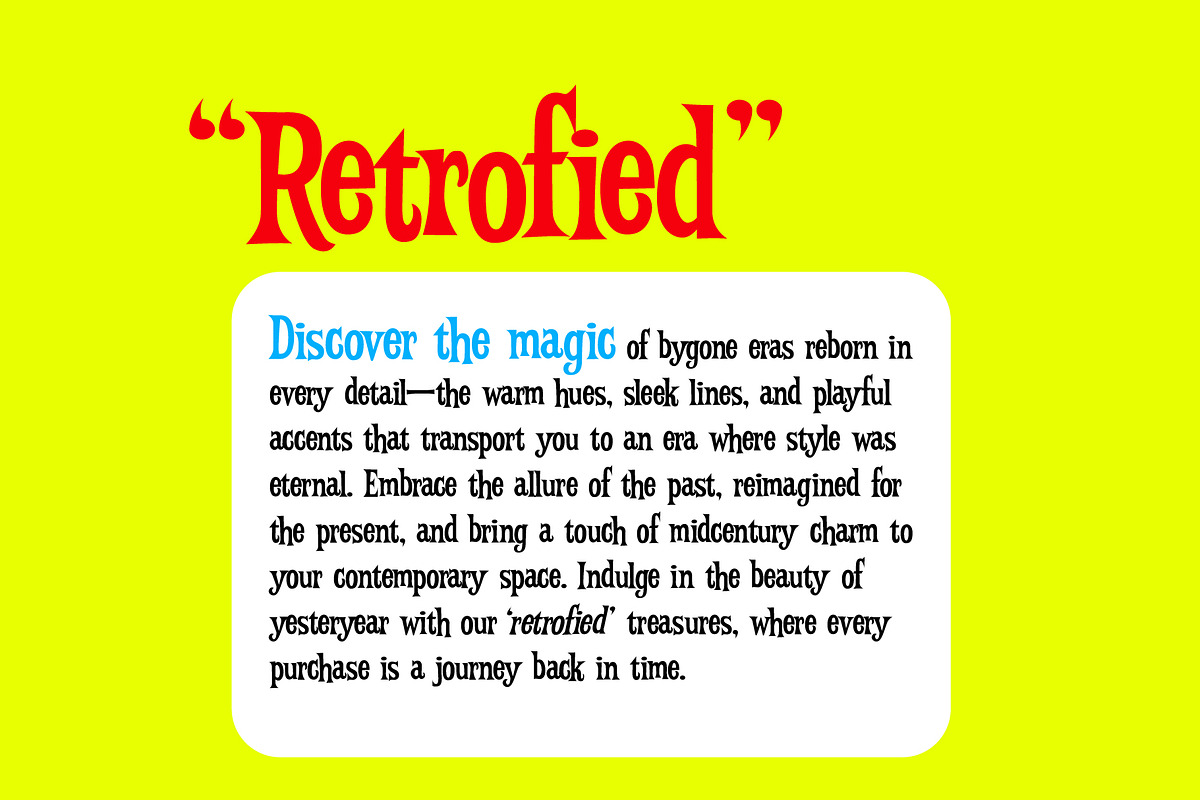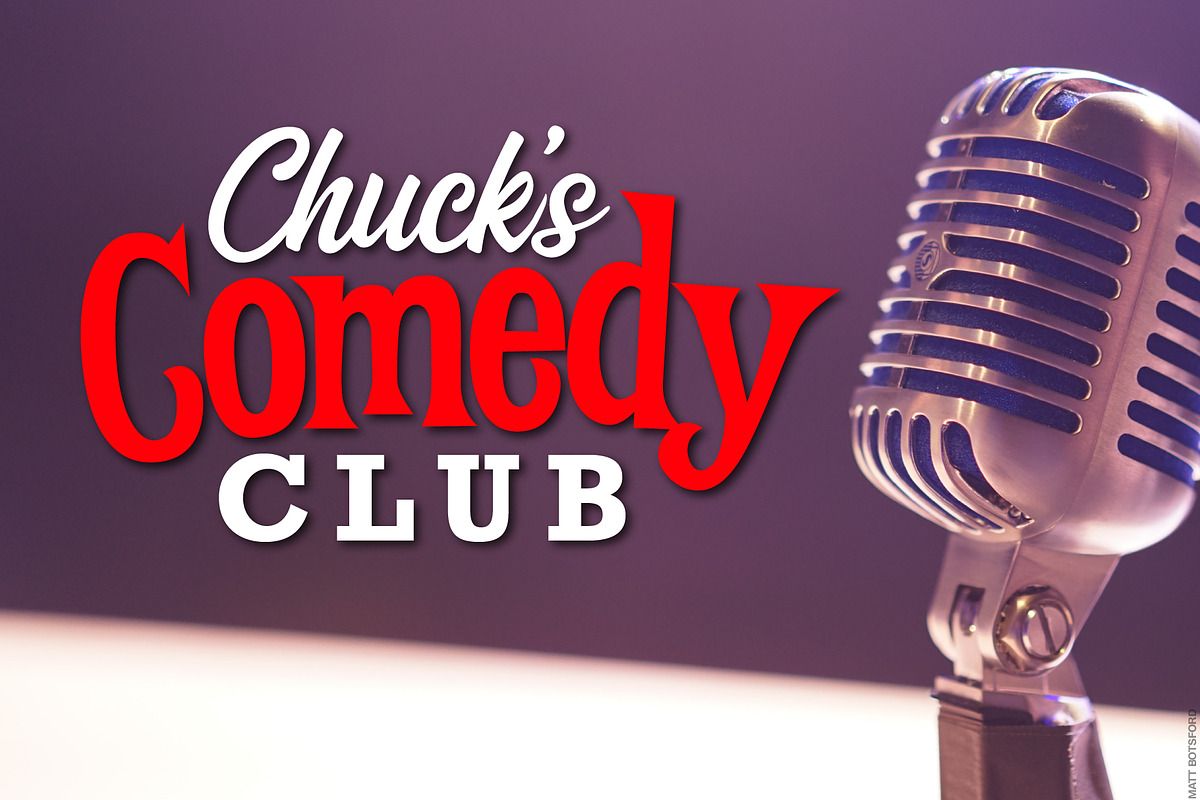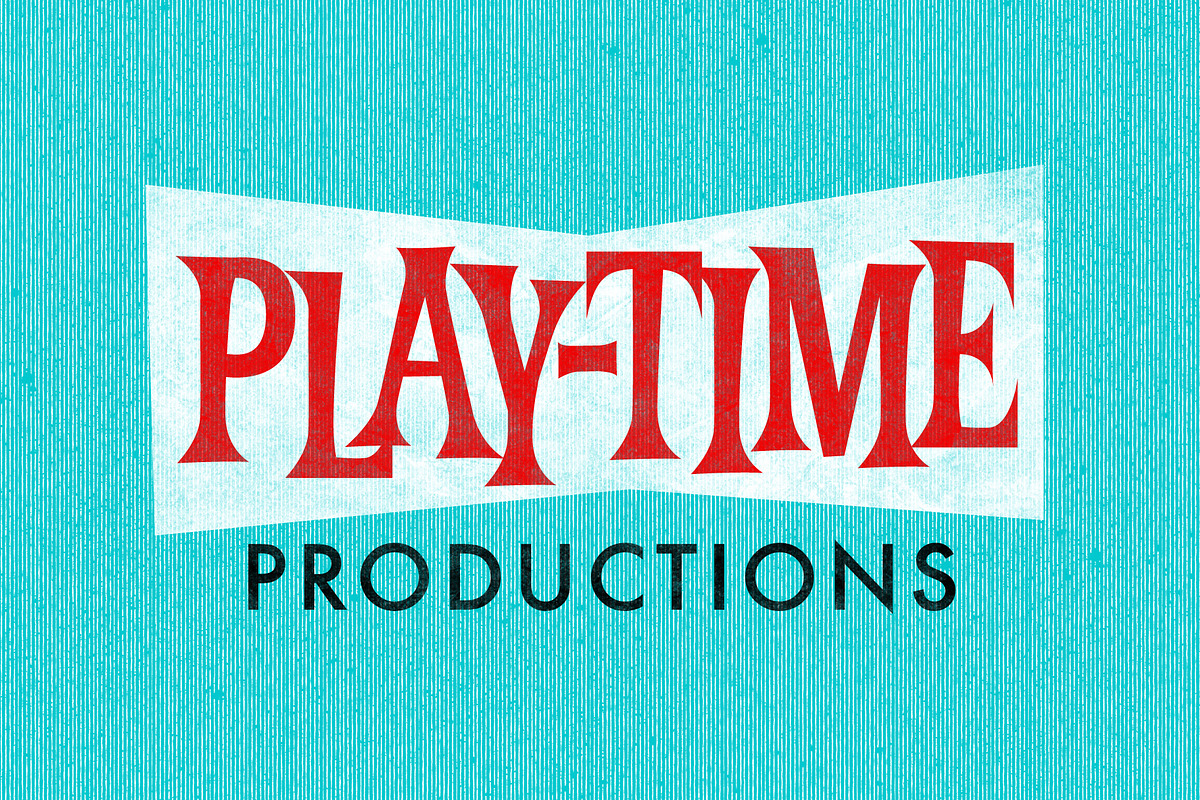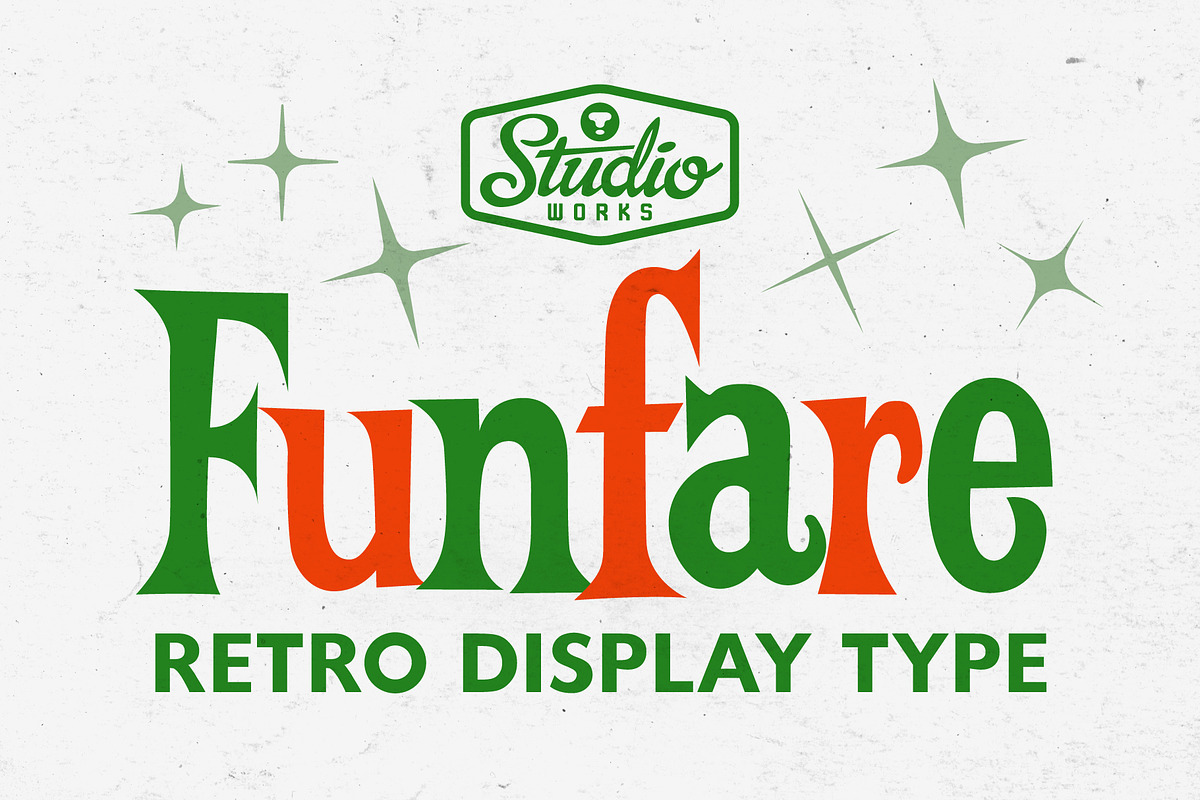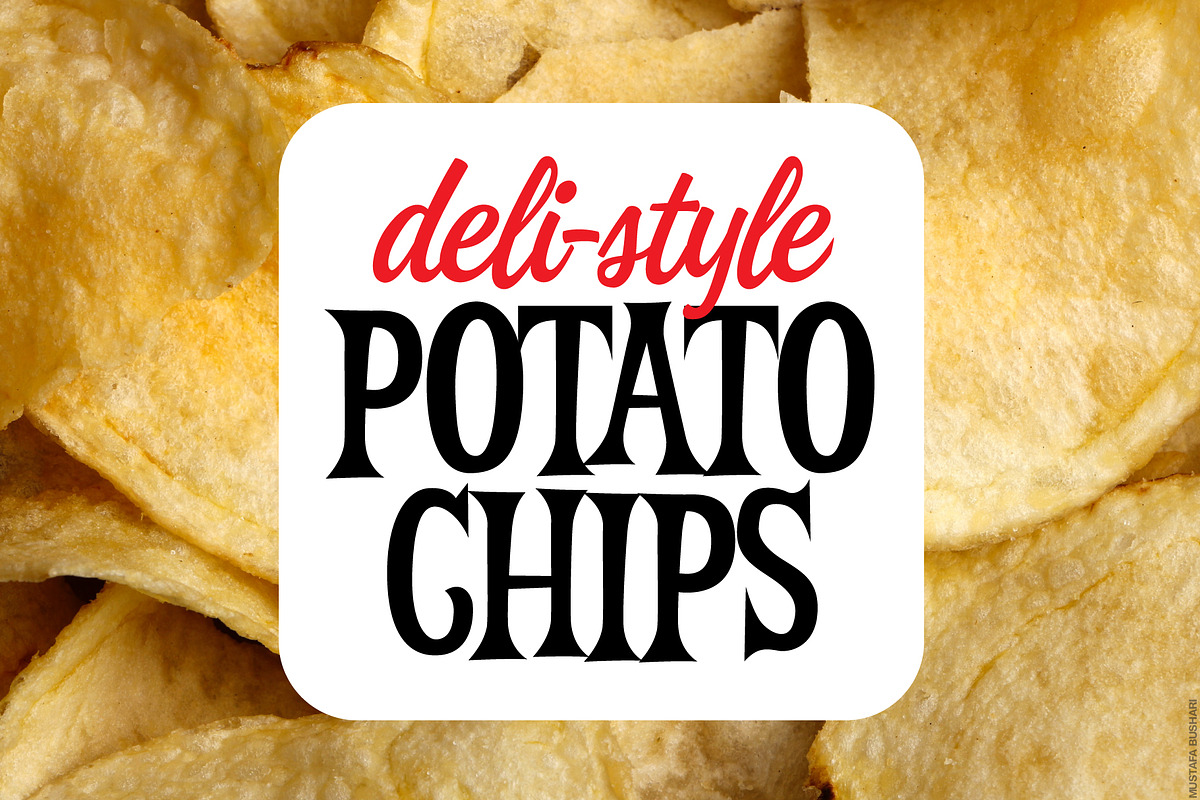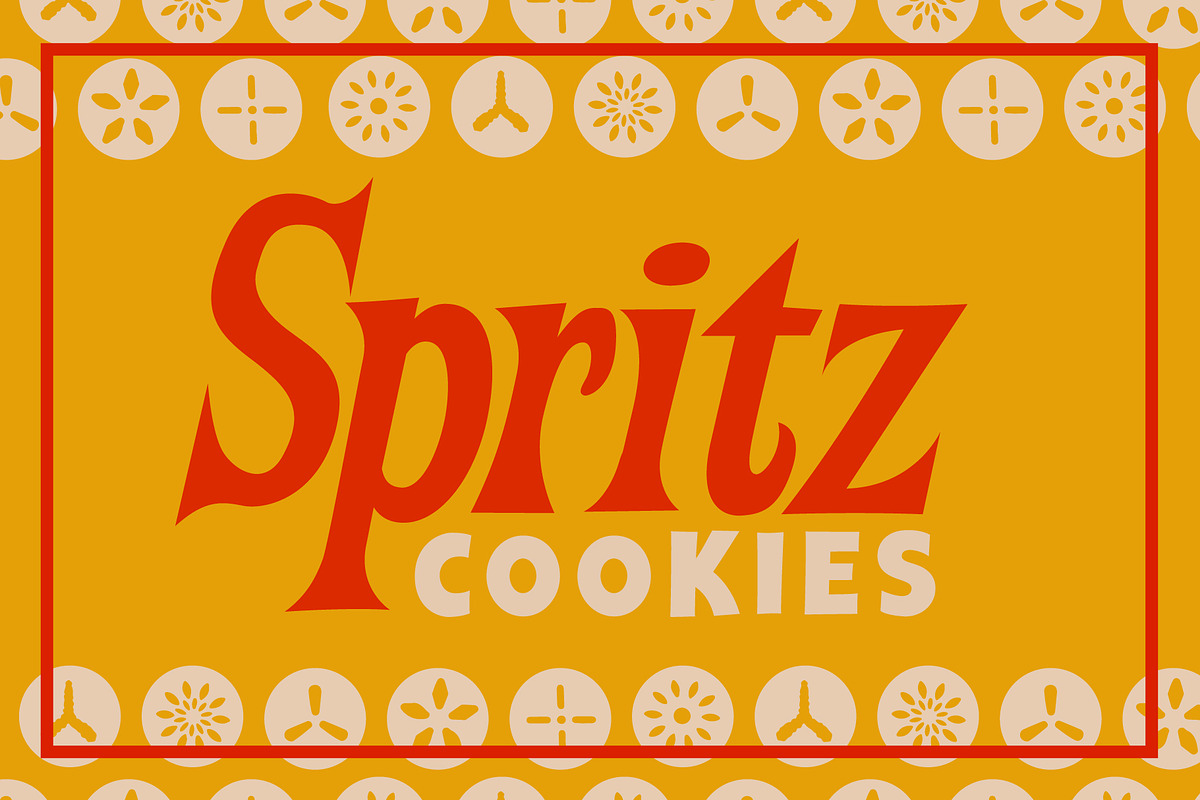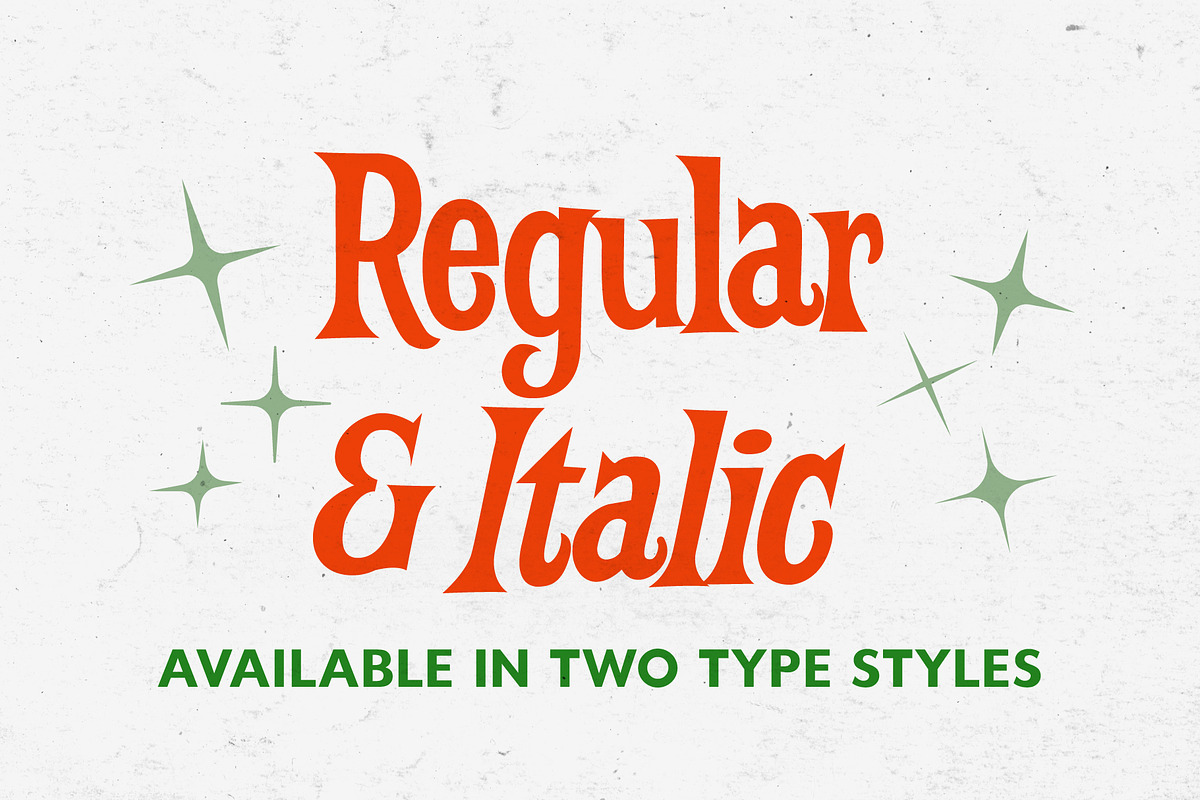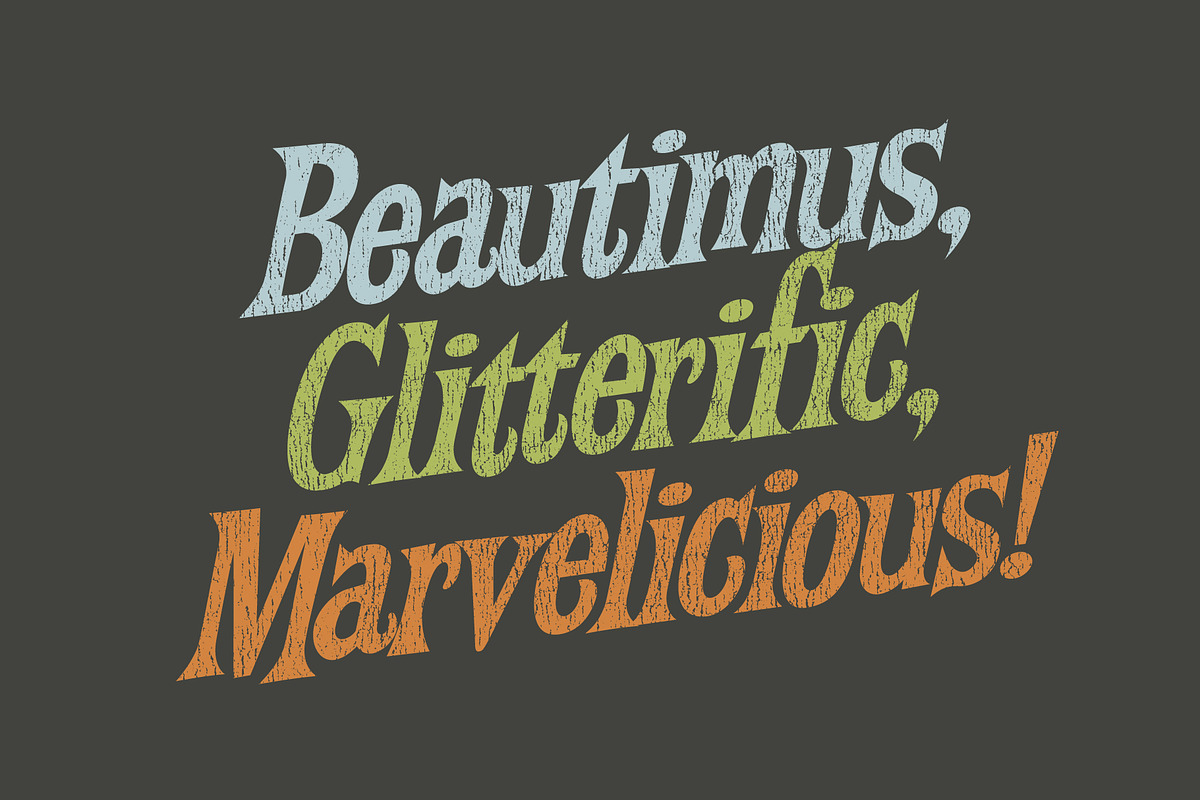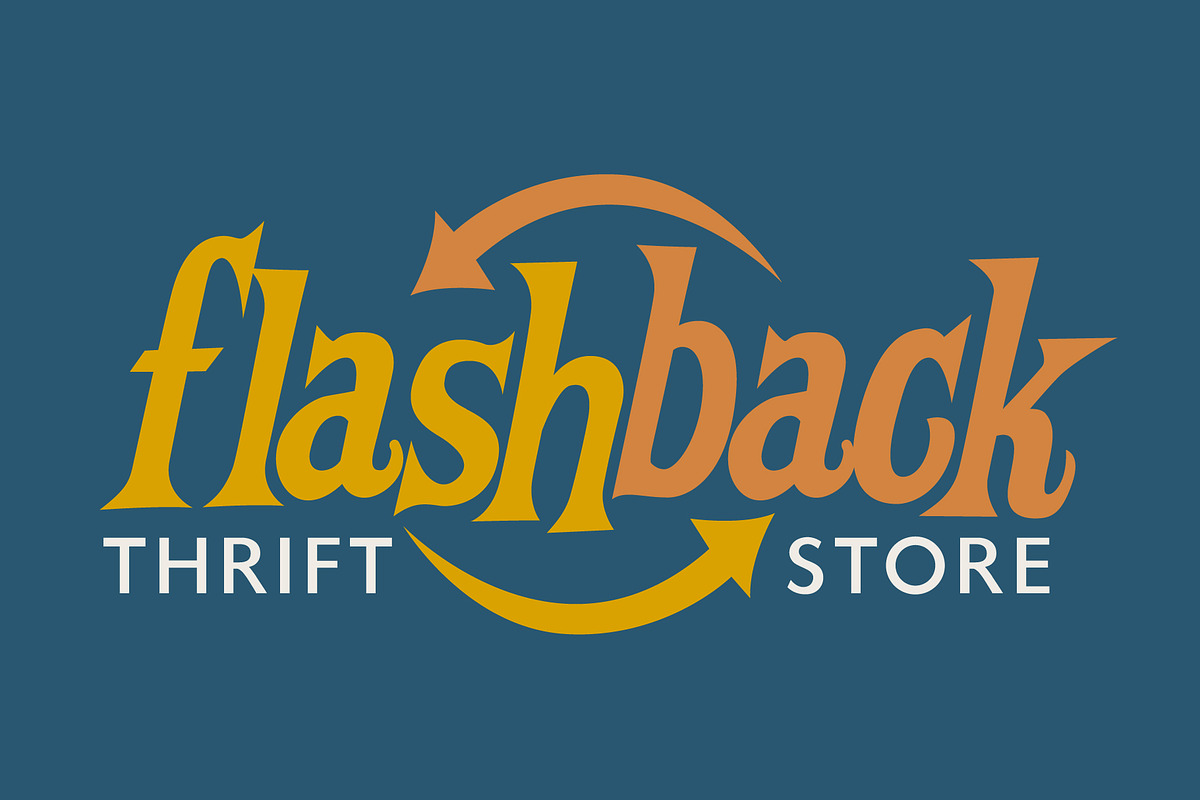
Funfare | Retro Display Type!
StudioWorks presents •• F U N F A R E •• — a good-natured retro display typeface!
Inspired by a candy ad from the 1950s, Funfare features flared terminals, pointy serifs and bouncy baselines. The casual imperfections of hand-lettered type evoke simpler and more innocent themes making this typeface ideal for festive events and products. Use Funfare to playfully announce product logos, posters and signage with retro appeal.